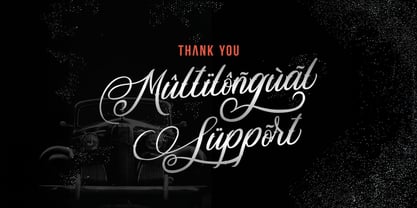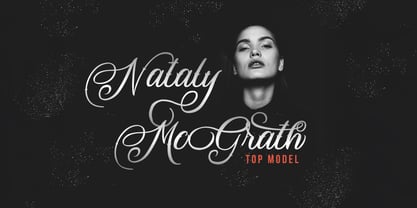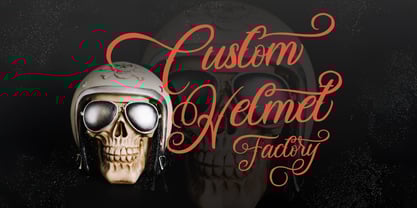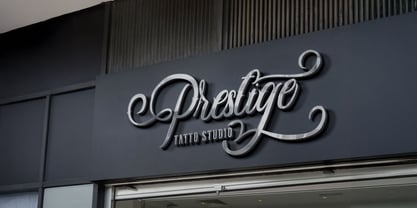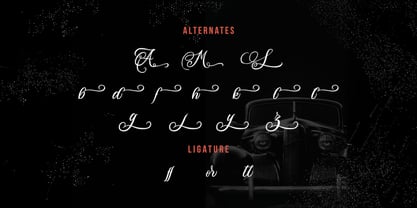
Daisuky Fancy
by Stringlabs Creative Studio
The Daisuky Fancy Font Family was designed by Virgiawan Listanto and published by Stringlabs Creative Studio. Daisuky Fancy contains 1 styles. More about this family
Daisuky Fancy is a delicate, elegant and flowing handwritten font. It has beautiful and well balanced characters and as a result, it matches a wide pool of designs. Daisuky Fancy features a varying baseline, smooth lines, gorgeous glyphs and stunning alternates. Add it to your most creative ideas and notice how it makes them come alive!
Designers: Virgiawan Listanto
Foundry: Stringlabs Creative Studio